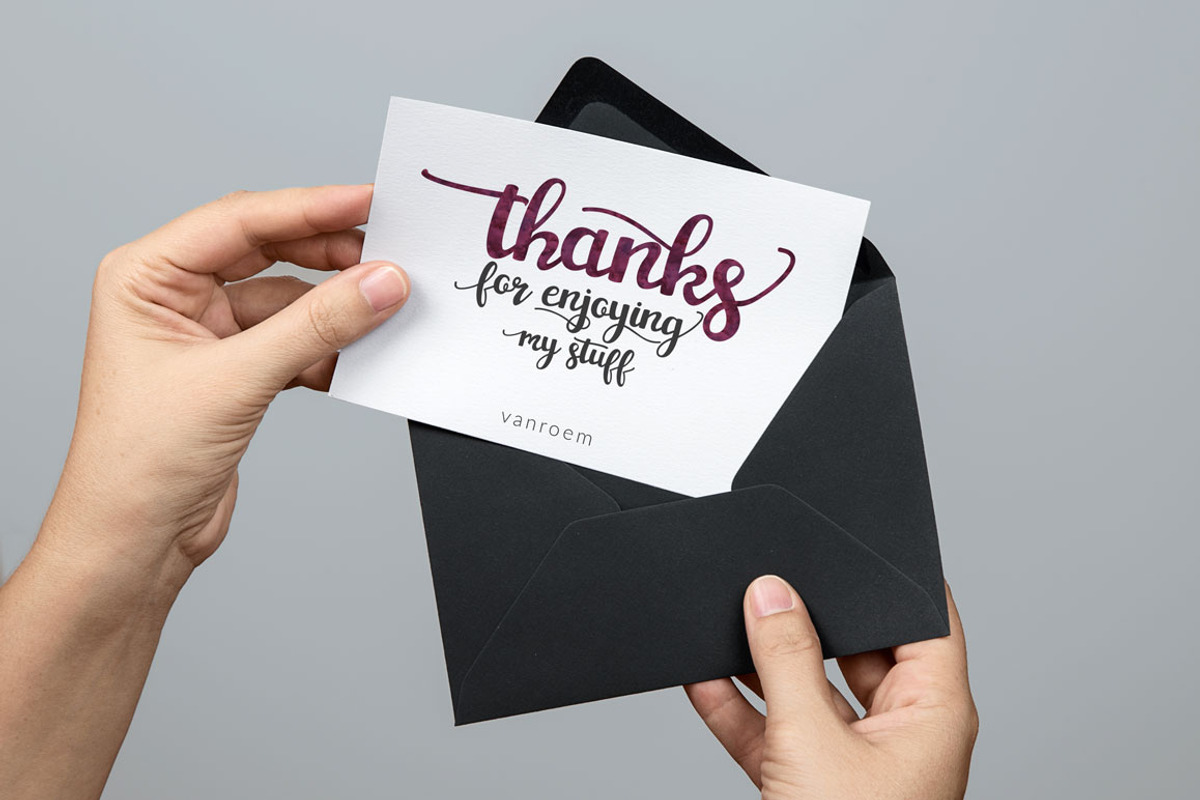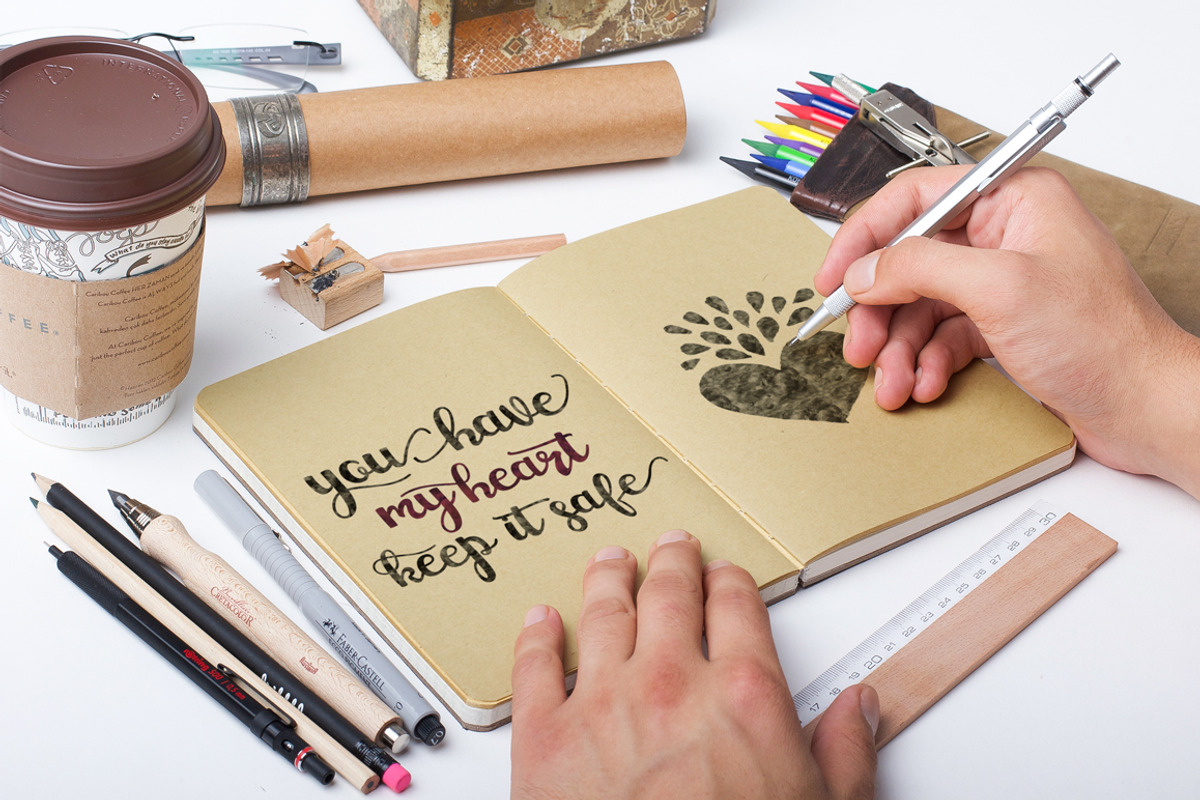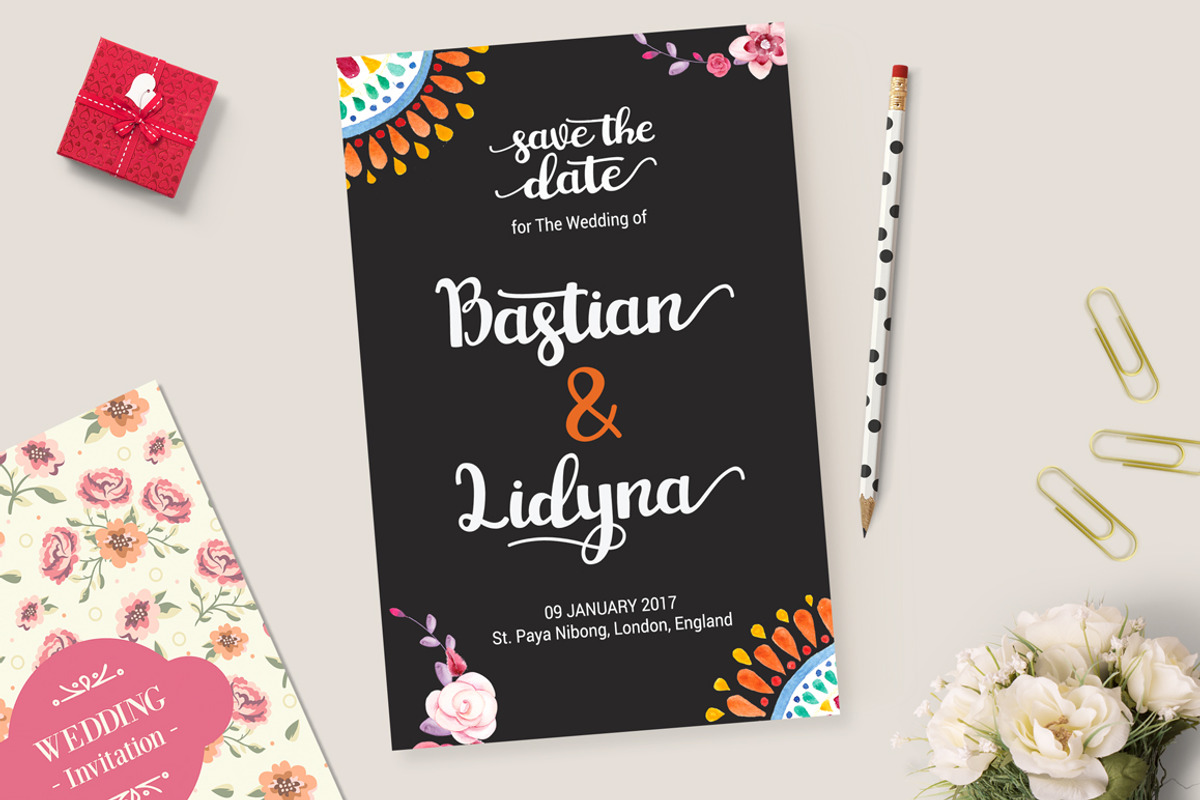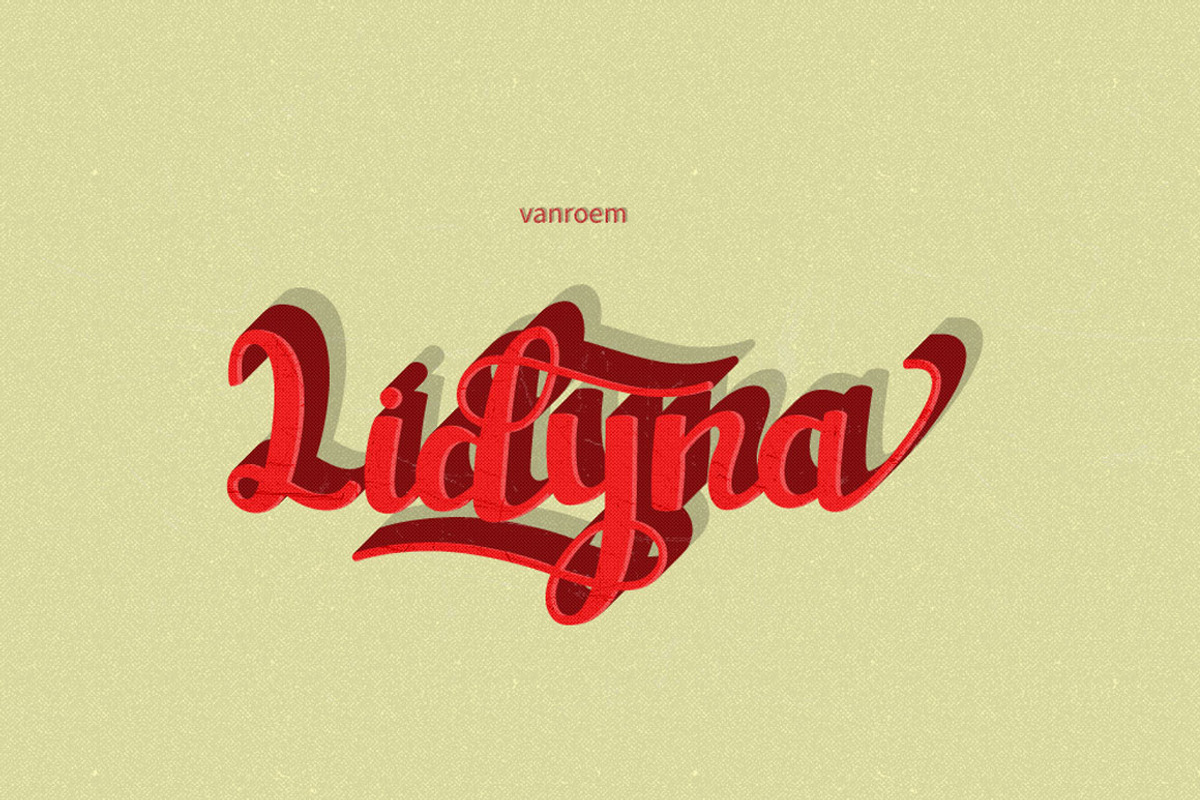
Lidyna Script
Lidyna Script is a new fresh, modern calligraphy typefcace, elegant, beautiful and dancing baseline! This font that combined brush lettering with traditional hand writing. Looks great on personal branding, business cards, stamps, quote posters and greeting cards. And don't forget wedding season! This would be gorgeous font for your design projects.
Lidyna elegant script font comes with 405 glyphs in total and has given PUA unicode (specially coded fonts), with tons of alternate characters. It was divided into a several OpenType feature such as Ligature, Contextual Alternates, Stylistic Alternates, and Stylistic Sets.